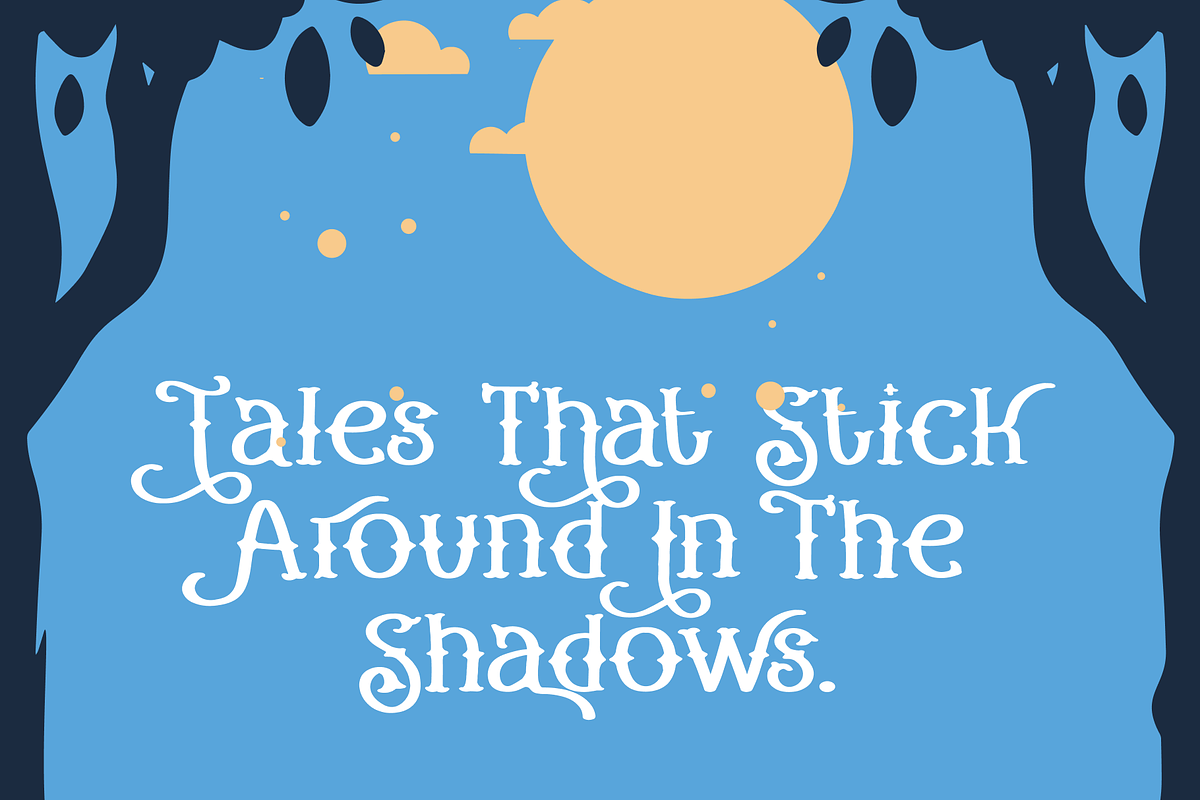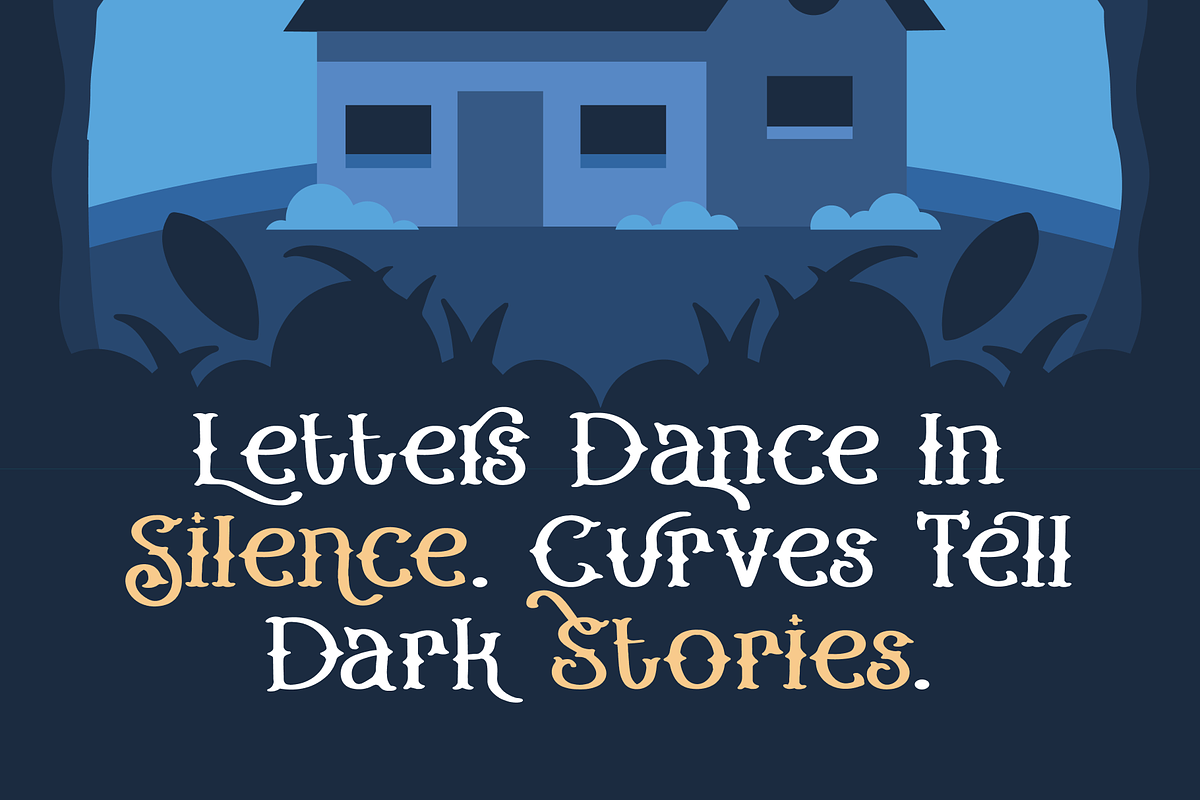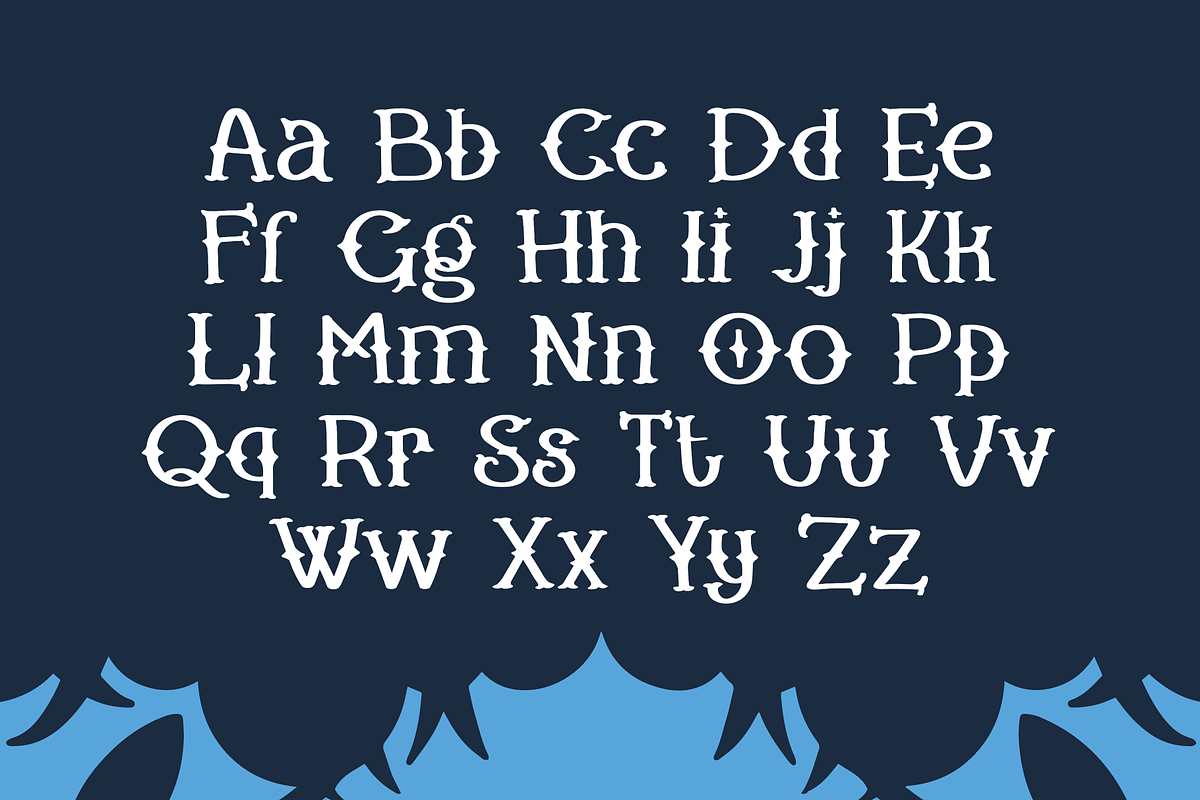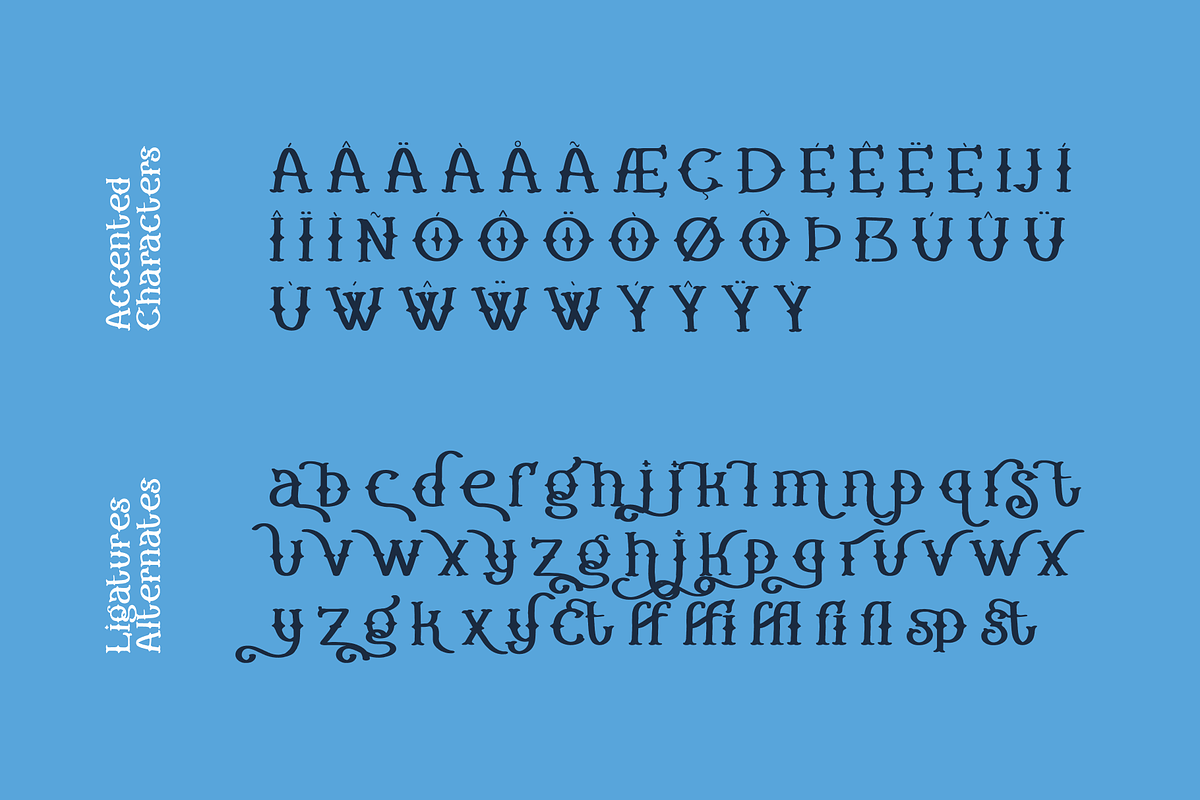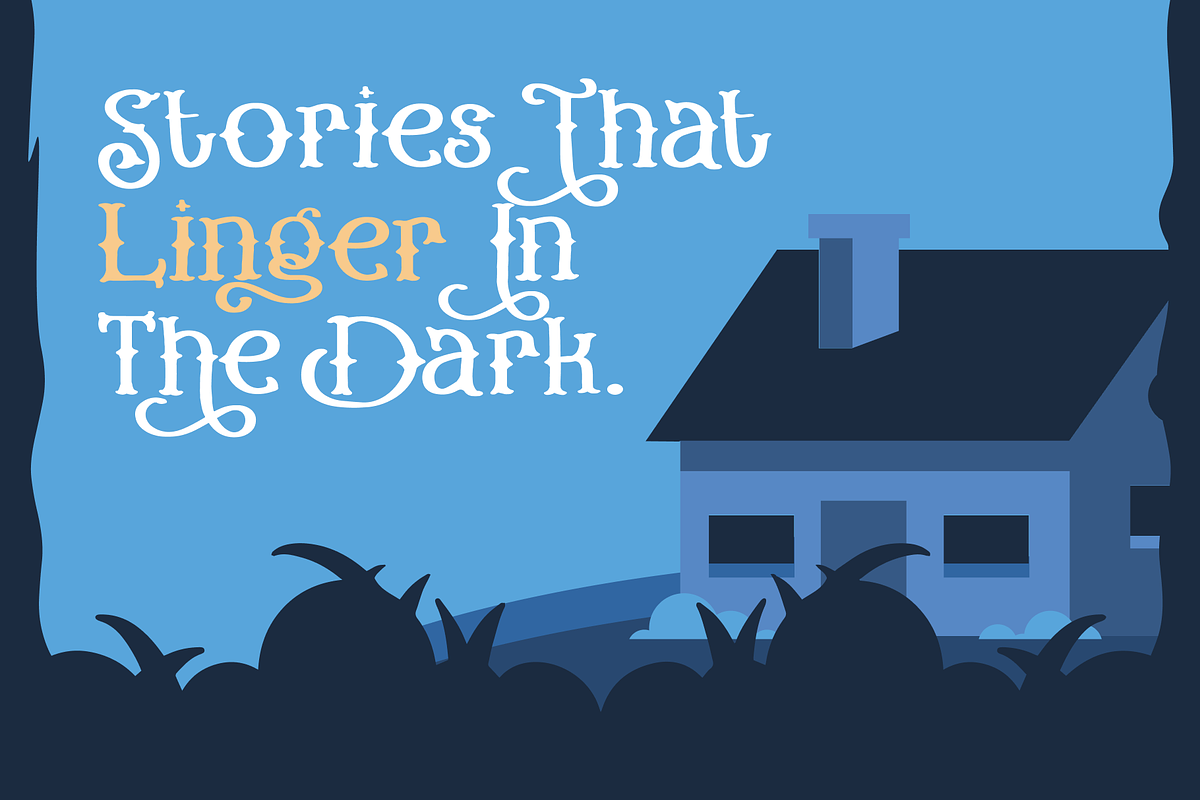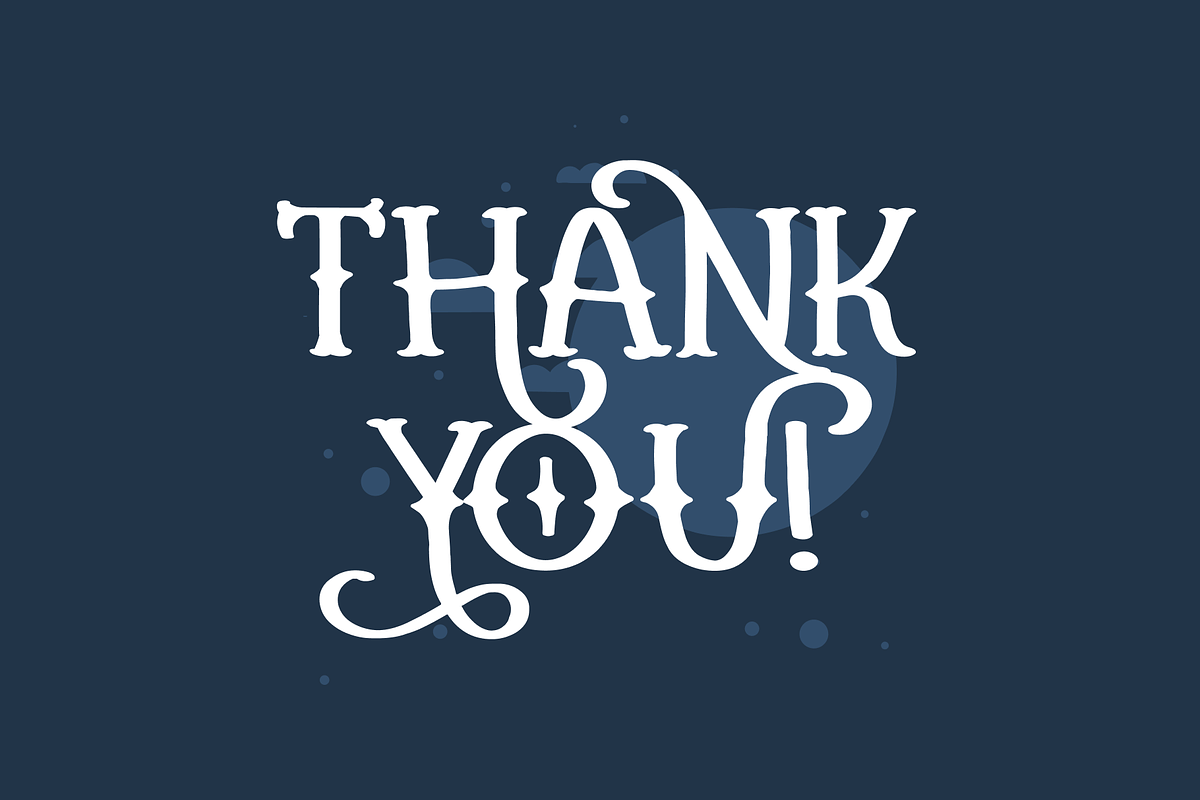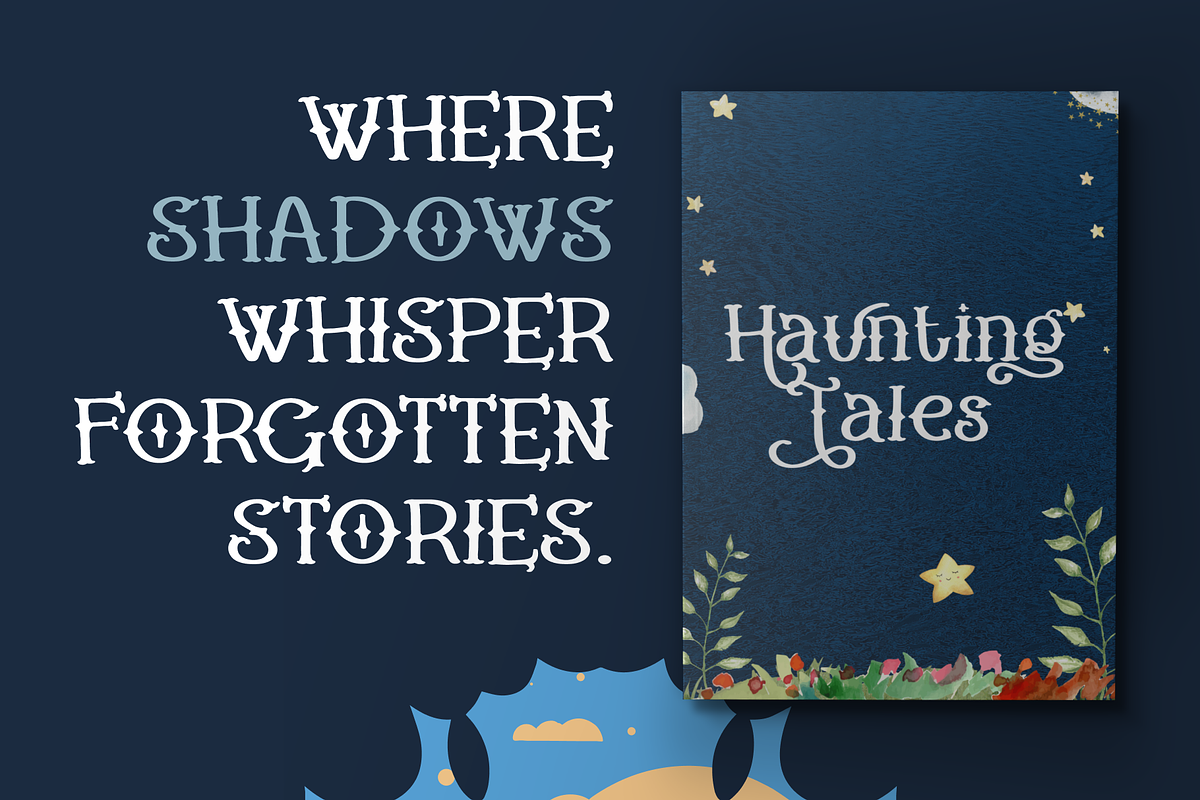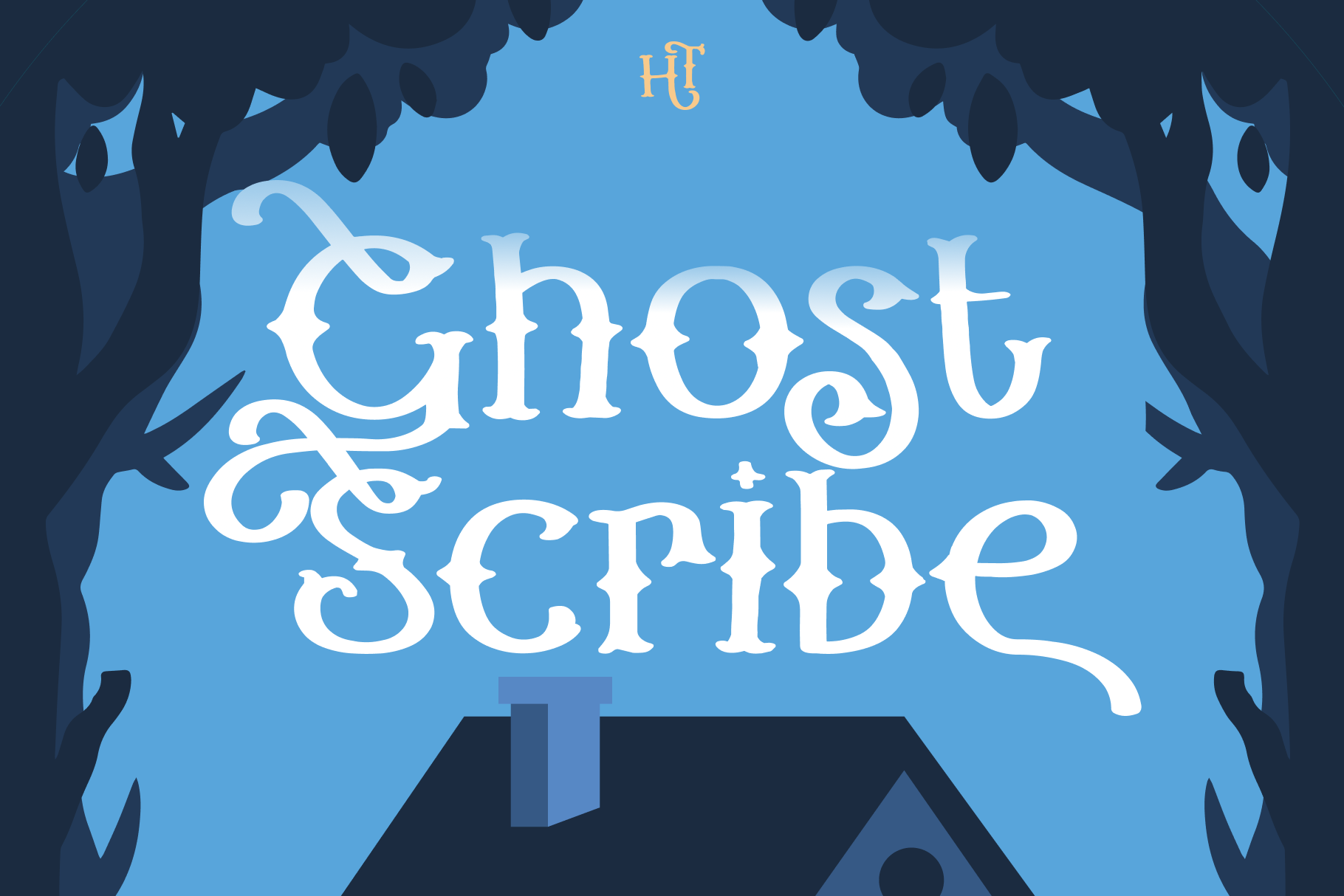
Ghost Scribe: Eerie Handwritten Font
Unleash the spirits of storytelling with Ghost Scribe, a captivating display font that breathes life into forgotten tales. Its hauntingly beautiful curves and elegant flourishes evoke a sense of mystery and intrigue, perfect for projects that demand a touch of the supernatural. Imagine your book covers whispering secrets, your Halloween invitations casting an enchanting spell, or your branding material leaving a lasting, ethereal impression. Ghost Scribe isn't just a font; it's an experience, a journey into the shadows where letters dance in silence and curves tell dark stories. Embrace the allure of the unknown and give your designs a voice from beyond.
- ligature and alternates feature